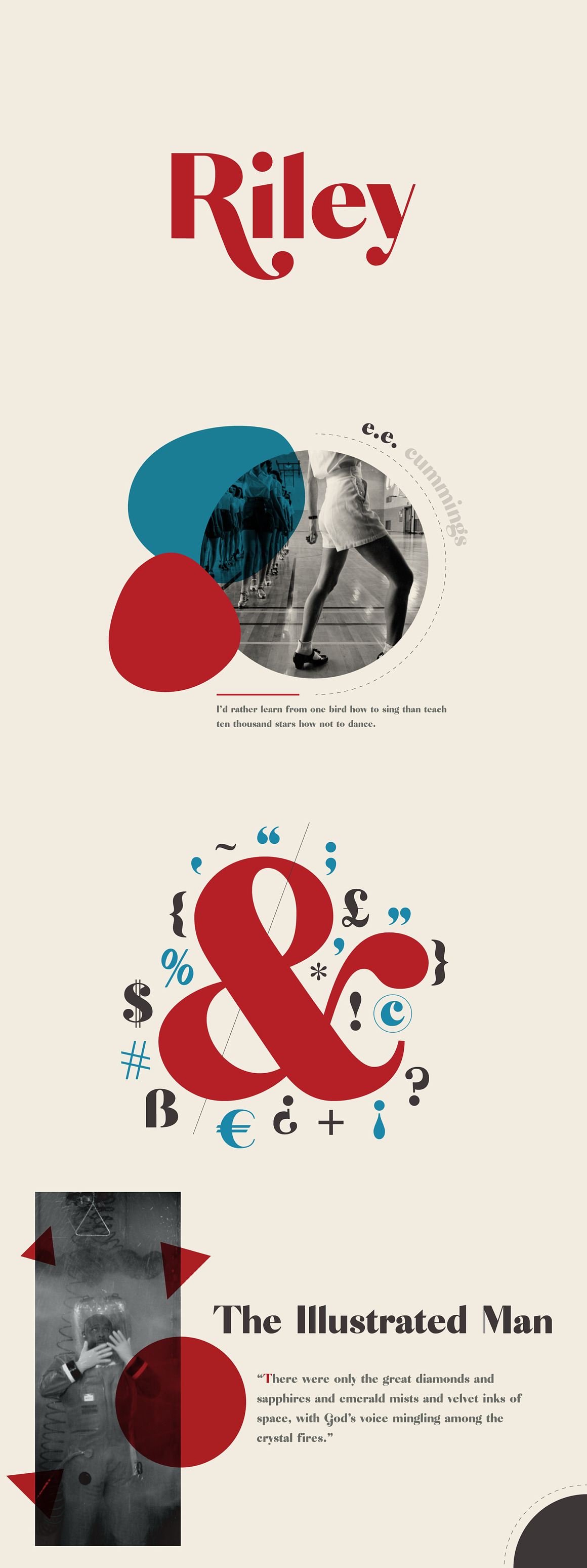
Riley - A Modern Typeface
Riley A Modern Typeface is perfect for contemporary brand identities, modern lifestyle campaigns, trendy fashion marketing, creative agency presentations, innovative startup branding, stylish digital platforms, progressive business communications, and forward-thinking design projects.
What makes Riley A Modern Typeface exciting is its refreshingly contemporary character that embodies the confident energy and stylish sophistication of modern living through precisely crafted letterforms that speak fluently to today's design-conscious audiences. The font features clean geometric structures with subtle modern refinements that create visual appeal without sacrificing readability or professional credibility. Its contemporary charm and approachable elegance make it perfect for brands that want to communicate modern relevance, stylish sophistication, and the kind of effortless cool that resonates with contemporary consumers while creating memorable experiences that feel both current and timeless.
Riley A Modern Typeface family includes various contemporary weights such as Light, Regular, Medium, and Bold variations, often featuring modern stylistic alternates and trendy decorative elements. The family may include contemporary symbols, stylish ornaments, and modern ligatures that enhance the font's fashionable aesthetic, providing designers with comprehensive options for creating sophisticated typographic compositions that reflect current design trends and contemporary lifestyle values.
This stylishly modern typeface has gained recognition among contemporary brands and design-focused businesses seeking authentic modern typography solutions that reflect current aesthetic sensibilities and progressive thinking. Riley A Modern Typeface Free Download provides an excellent opportunity to modernize with this contemporary font before investment. The font's character set includes modern symbols and trend-inspired glyphs that work perfectly for lifestyle and creative industry applications. Whether you're designing for fashion brands, creative agencies, or modern lifestyle companies, Riley A Modern Typeface delivers the contemporary sophistication your project requires. Its versatile nature makes it suitable for various modern applications including design studios, trendy retailers, contemporary restaurants, and progressive lifestyle brands, ensuring your typography choices communicate modern relevance and stylish appeal while creating memorable brand experiences that connect with contemporary audiences who appreciate fresh design approaches and current aesthetic trends through its distinctively modern and authentically contemporary visual character.